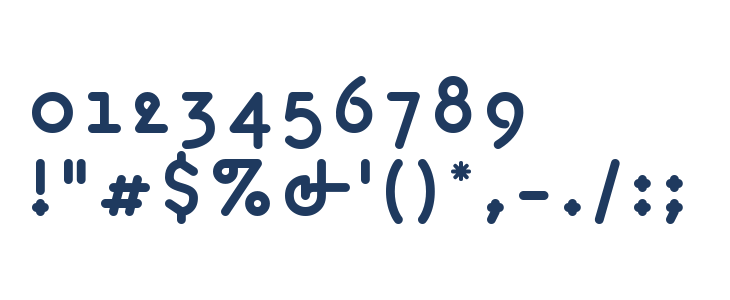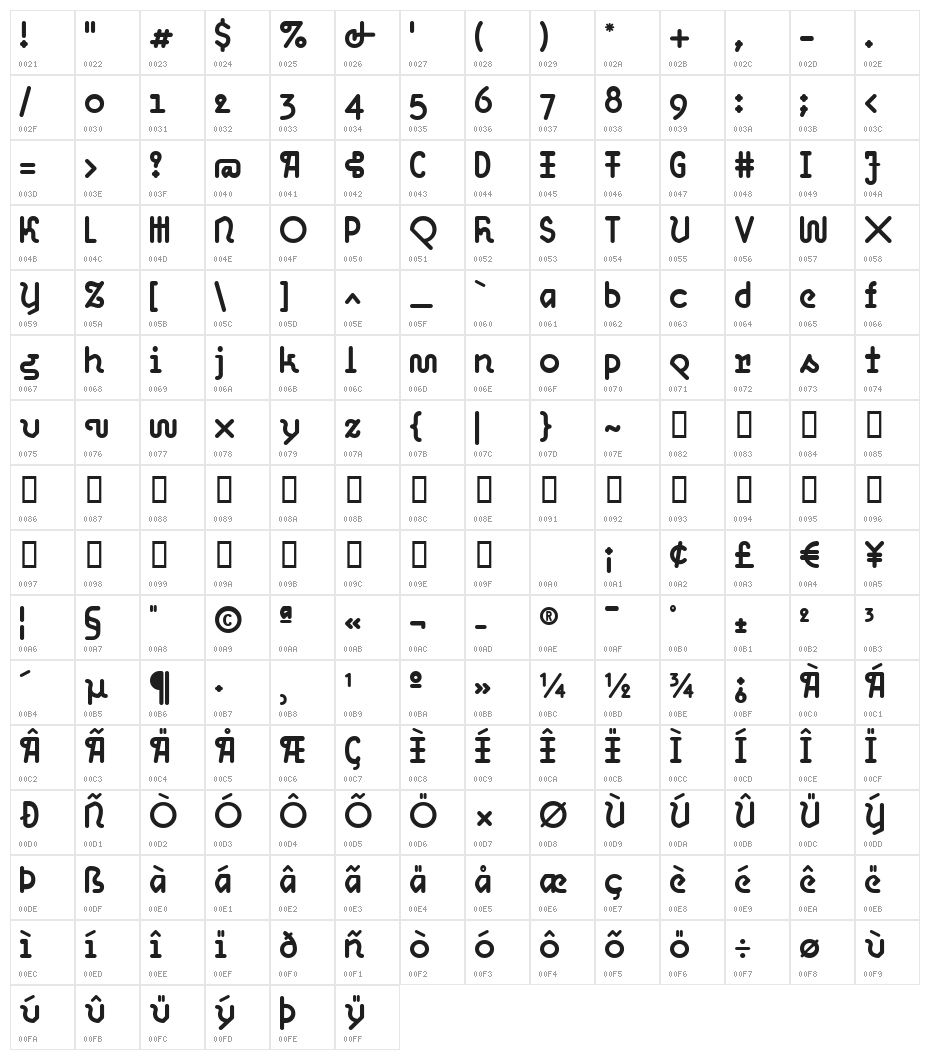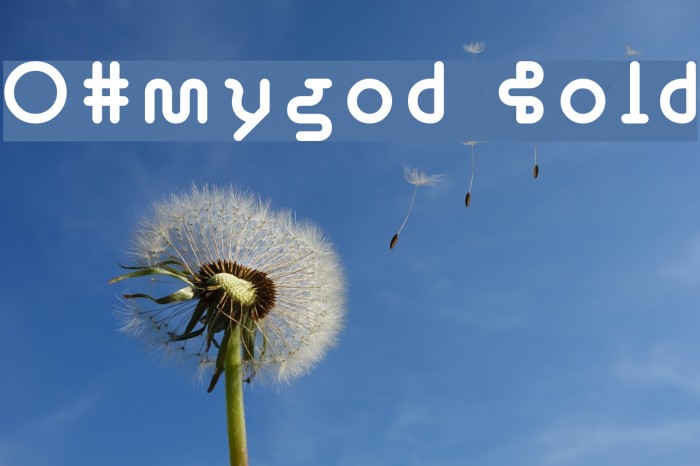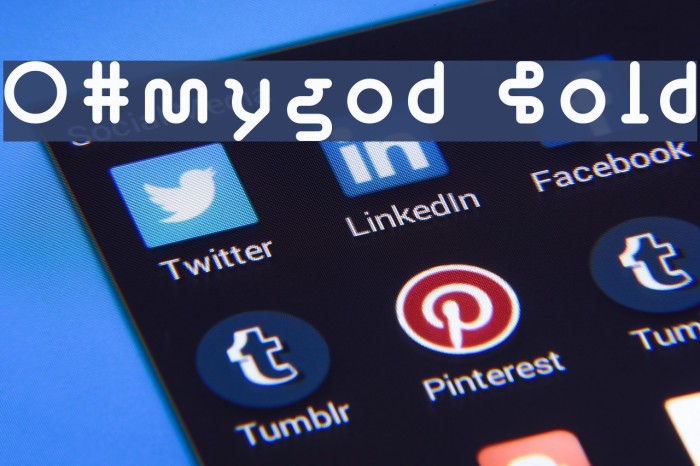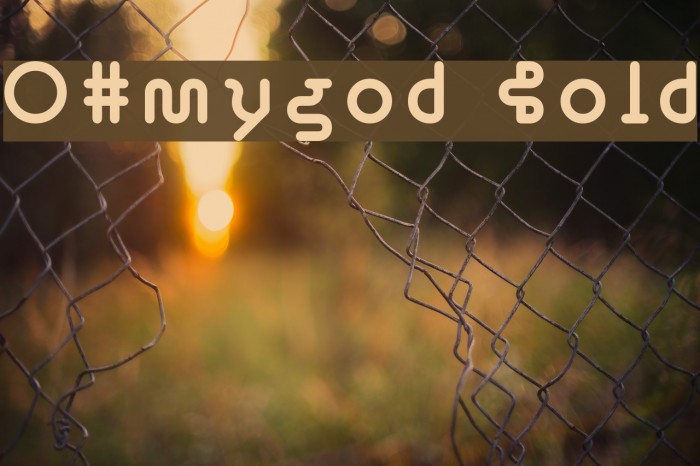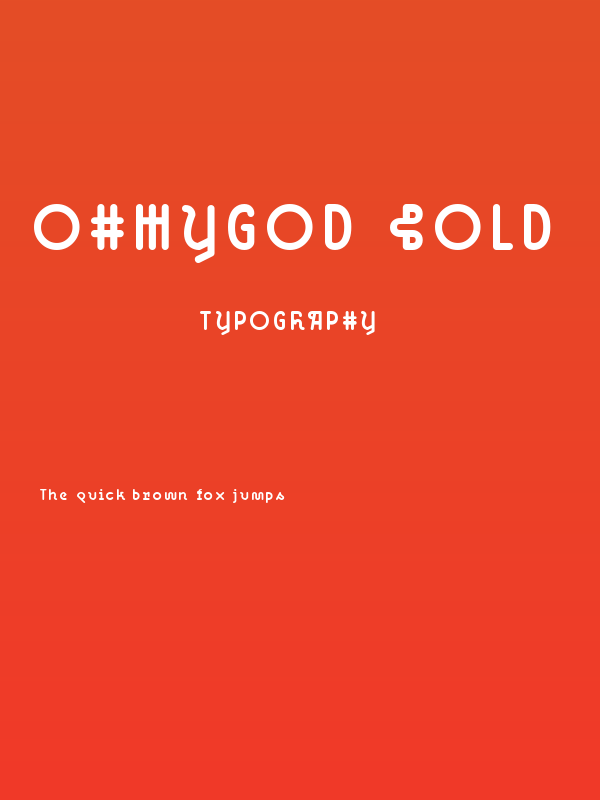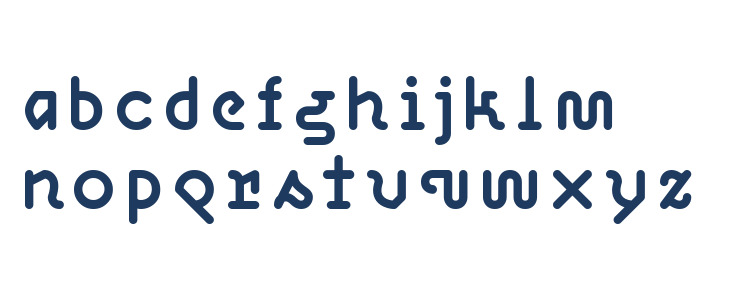
OHmygod Bold Font
OHmygod Bold Description
This font features a playful and bold design with a unique and quirky character set. The letters are rounded and have a consistent stroke width, giving them a friendly and approachable appearance. The uppercase and lowercase letters maintain a uniform style, with some characters incorporating unexpected twists and turns that add to the font's whimsical nature. The numerals and special characters are designed to match the overall aesthetic, ensuring a cohesive look across all text. This font is ideal for projects that require a fun and engaging visual element.
| Proposed Projects | Ideal for children's books, playful branding, event posters, and creative social media graphics. |